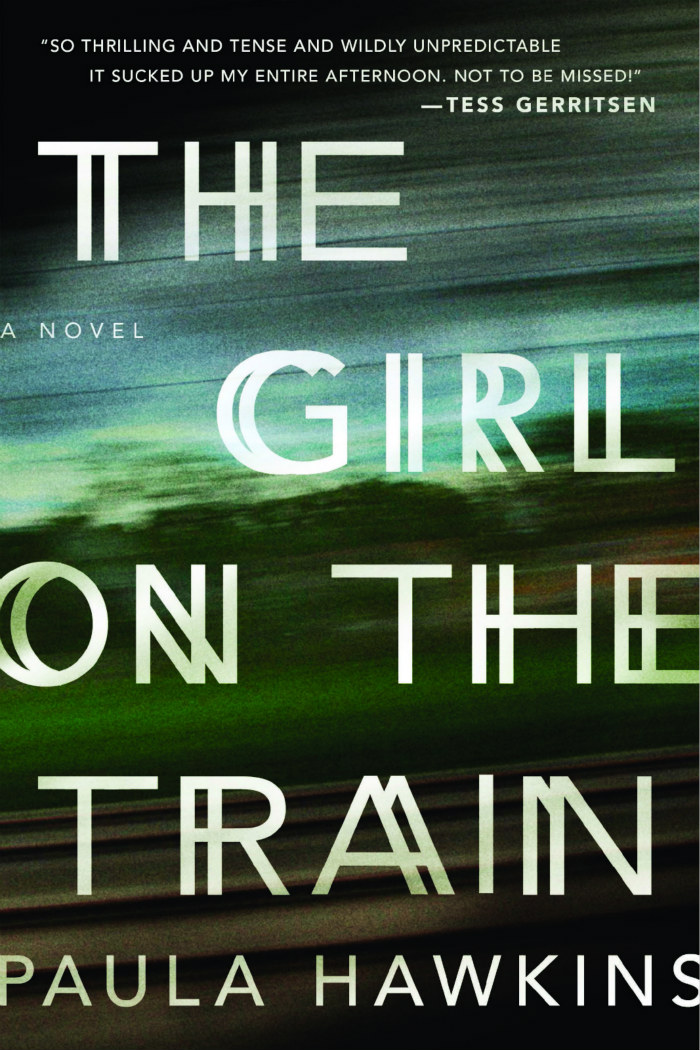
The Girl on the Train Font
BookThe Girl on the Train is a psychological thriller novel by Paula Hawkins. The story follows the life of a divorced, alcoholic woman who becomes embroiled in a missing person's investigation after witnessing something troubling from the window of a train.
The Girl on the Train title lettering on the book cover uses a geometric sans-serif font called Avenir Medium. The typeface Avenir was created in 1988 by Adrian Frutiger, influenced by earlier geometric sans-serifs such as Futura and Erbar.